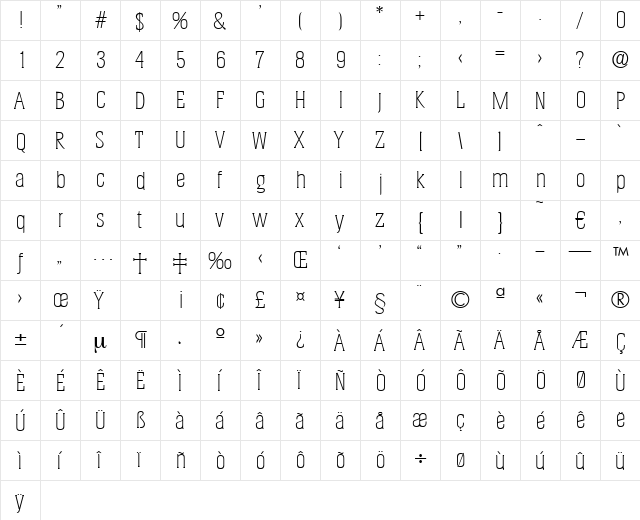
Helium-Xlight Regular
Design Context for Helium-Xlight Typeface
Helium-Xlight offers clean, dependable letterforms without strong stylistic allegiance, making it a practical choice for designers who need flexibility. The delicate stroke weight brings airiness and refinement to layouts.
Pro Tip: Pair Helium-Xlight with a font of contrasting weight or personality to build a more expressive typographic hierarchy.